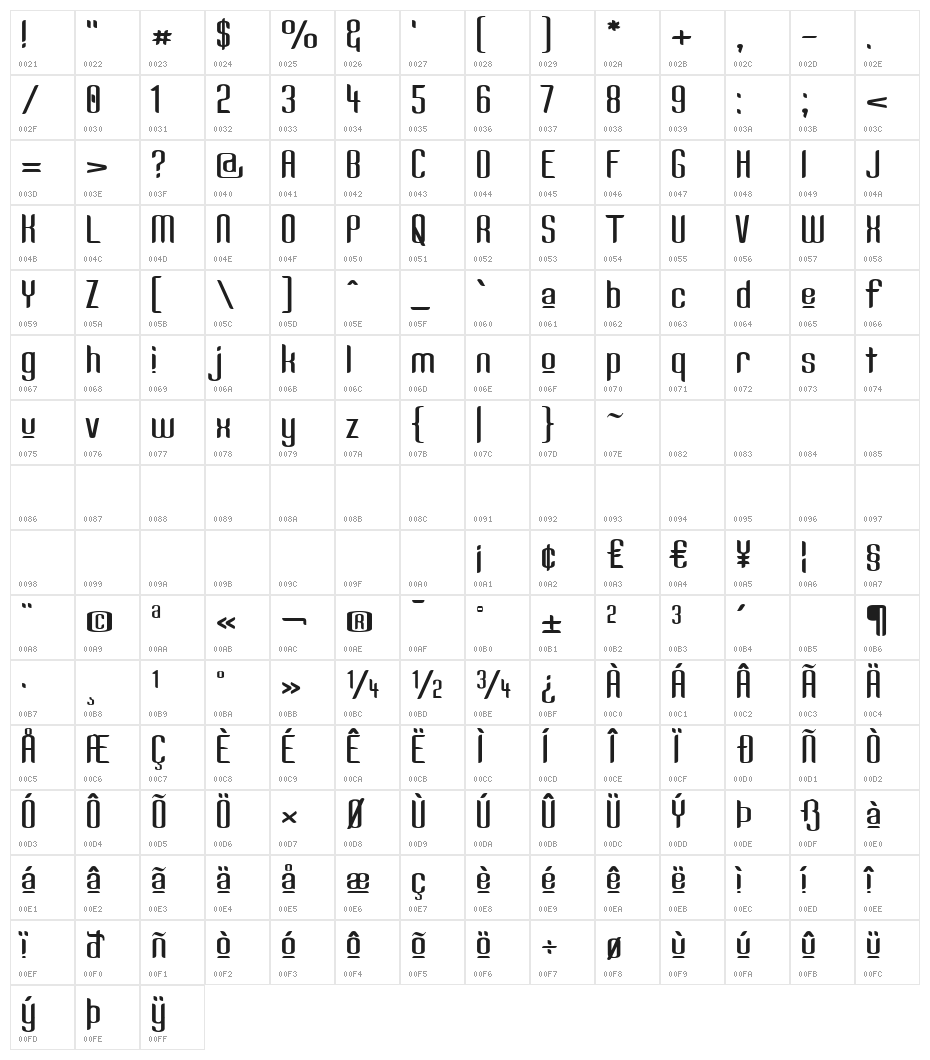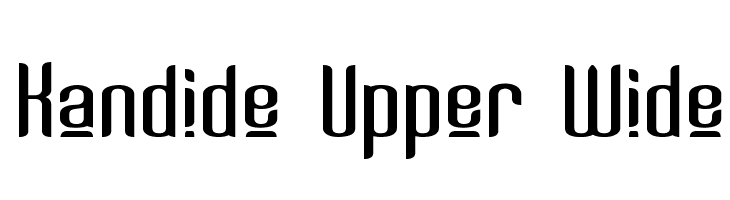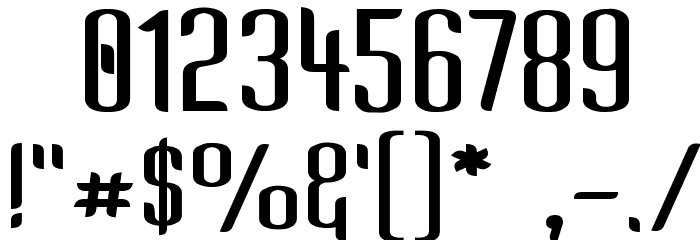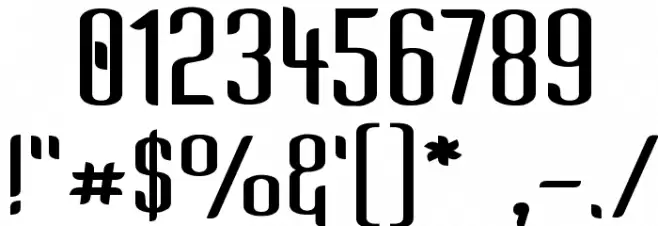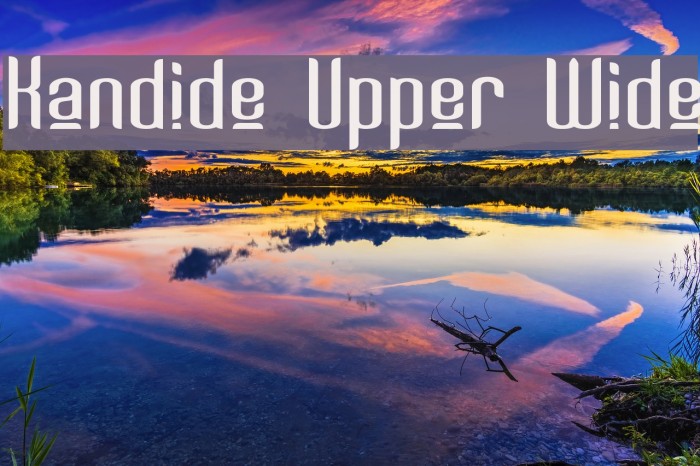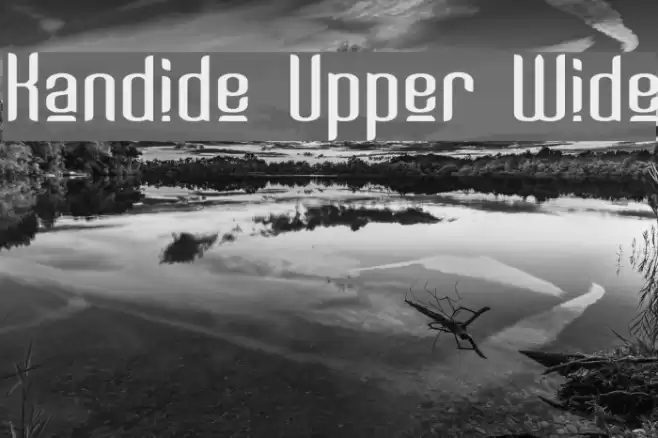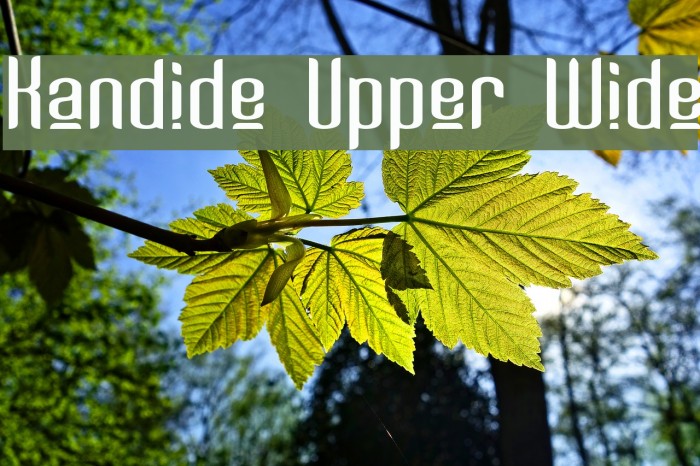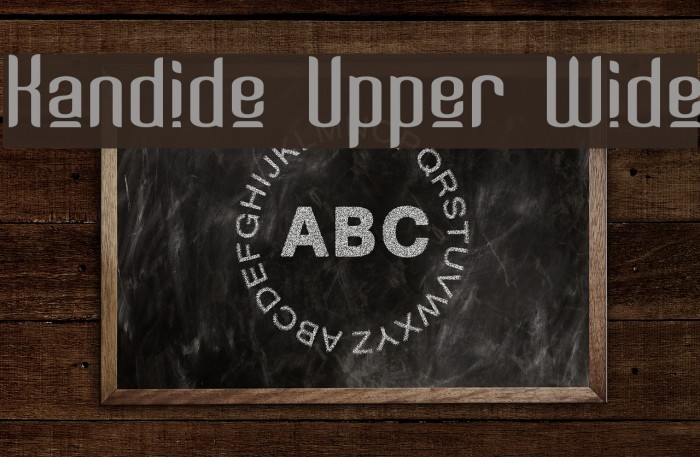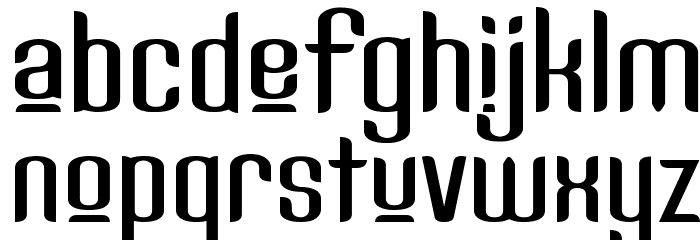
Kandide Upper Wide Font
Kandide Upper Wide Description
This font features a unique blend of modern and vintage elements, characterized by its tall, narrow letterforms and distinct rounded edges. The uppercase letters are particularly elongated, giving a sense of elegance and sophistication. The lowercase letters maintain a consistent style, with subtle variations in stroke width that add visual interest. The numerals are clear and easy to read, matching the overall aesthetic of the alphabet. Special characters are well-integrated, ensuring versatility in various design contexts. The font's clean lines and geometric shapes make it suitable for contemporary design projects, while its retro flair adds a touch of nostalgia.